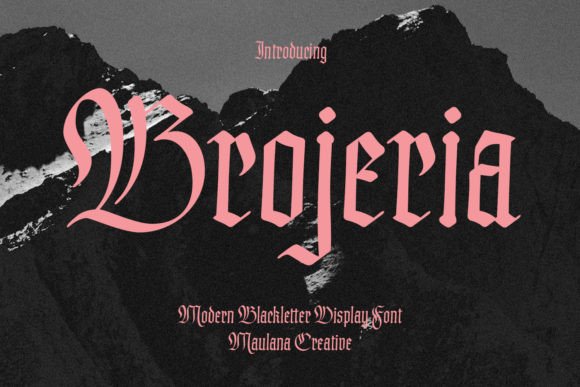
Step into a world of enchantment with Brojeria, the font that casts a spell of visual intrigue and elegance. Its medium-high contrast strokes and smooth edges dance together in perfect harmony, captivating your audience with its timeless allure. Brojeria isn’t just a font; it's a pathway to remarkable design. Whether you're conjuring logos that resonate, crafting social media posts that sparkle, or designing movie titles that ignite the imagination, Brojeria is your trusted companion. Its versatility extends to book titles, short texts, and even long-form content, effortlessly adapting to your creative vision. Unleash your inner artist and let Brojeria elevate your designs to new heights. Dare to embrace the extraordinary, for Brojeria is the key to unlocking your design dreams.
Discover the enchanting fusion of classic and modern in Brojeria, a font brimming with character and charm. With its medium-high contrast stroke, it dances across your designs with unwavering confidence, while its smooth edges lend an air of timeless elegance. Brojeria's playful ligature and alternates add a touch of whimsy, inviting your audience to embark on a journey of visual delight. Whether you seek to enchant with logos, captivate with social media posts, or enthrall with movie titles, Brojeria is your trusted ally. Its versatility knows no bounds, extending its magic to book titles, short texts, and even long-form content. Let Brojeria be the catalyst for your design brilliance, for it holds the power to transform your ideas into captivating realities.